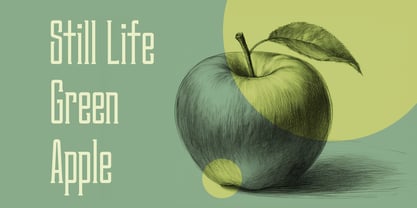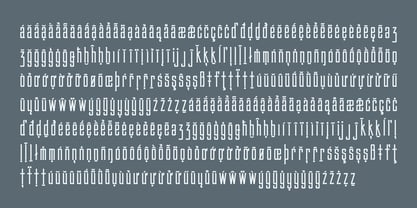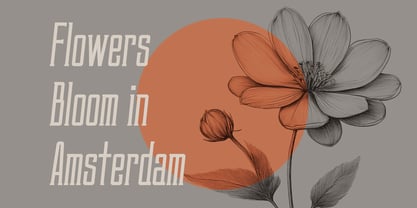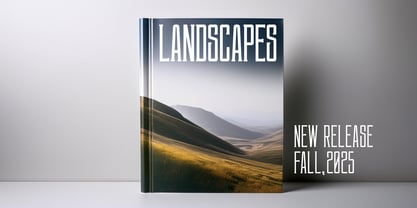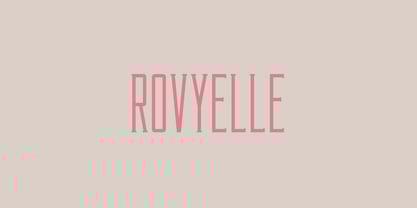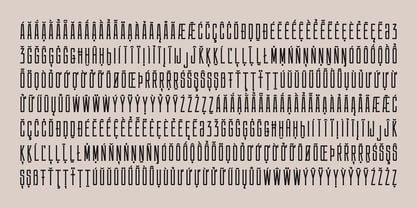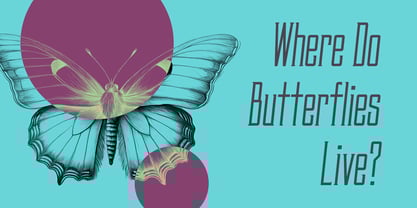
Rovyelle
by Outerend
The Rovyelle Font Family was designed by Taka Ikari and published by Outerend. Rovyelle contains 10 styles.
A tall and tightly condensed typeface with subtle serif details, blending modern elegance with a hint of classic character.